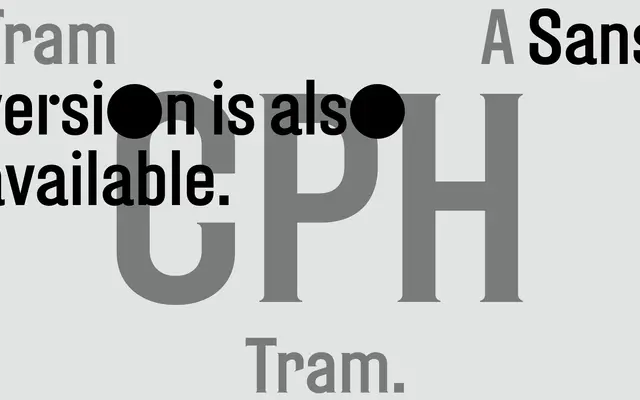
CPH Tram
A seven-weight revival of the hand-painted destination lettering used on Copenhagen trams around 1920.
Drawn from original hand-painted tram destination signs dating to around 1920, the family carries the irregular warmth of signpainting into a usable digital grotesque. Seven weights run from Light to Black with no italics, keeping the range focused and suited to display and wayfinding contexts. The source material gives it a character distinct from constructed grotesques of the same era.
A revival of early 20th-century Danish tram signage lettering, the hand-painted origins give it a humanist grotesque quality rather than a mechanically precise construction.